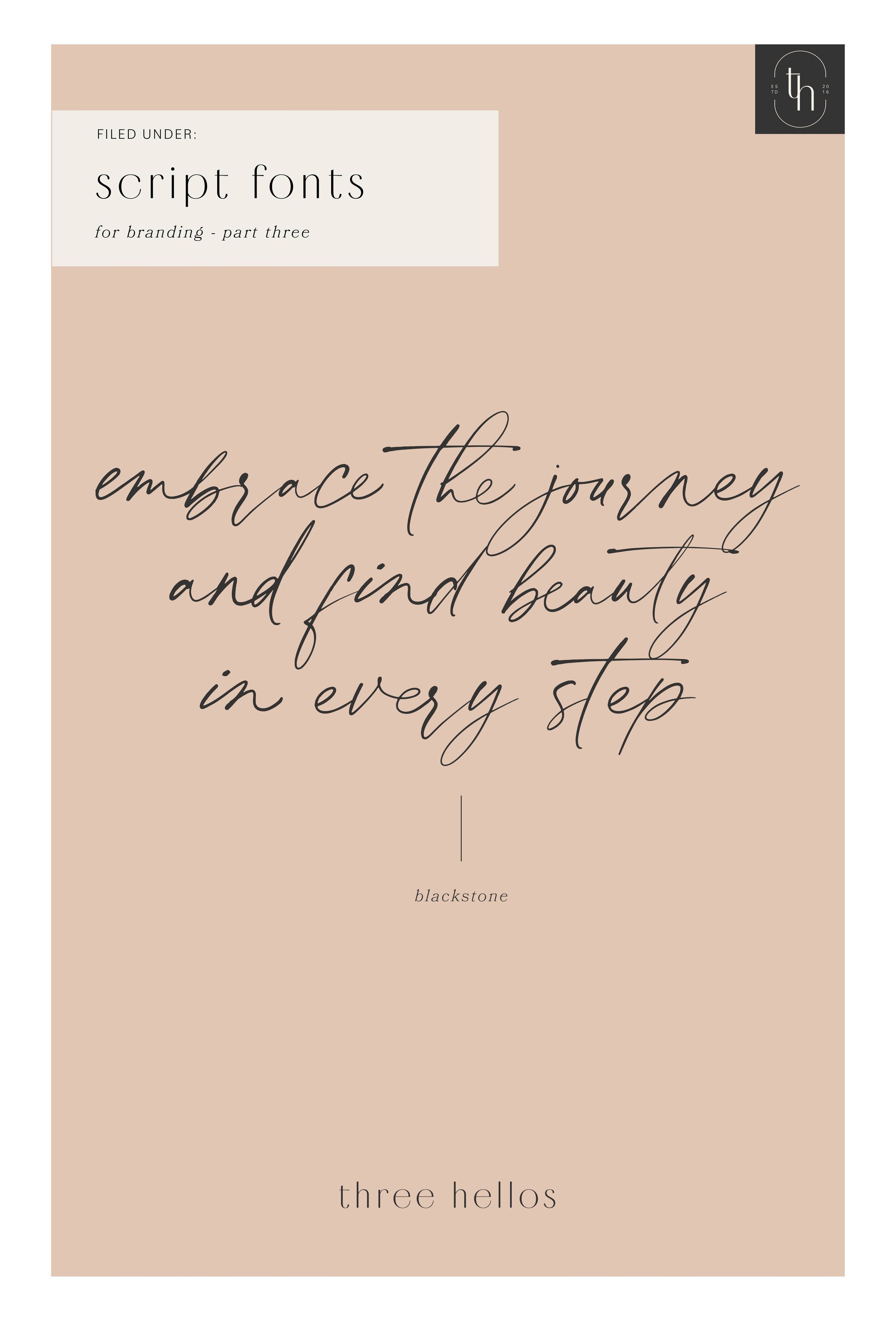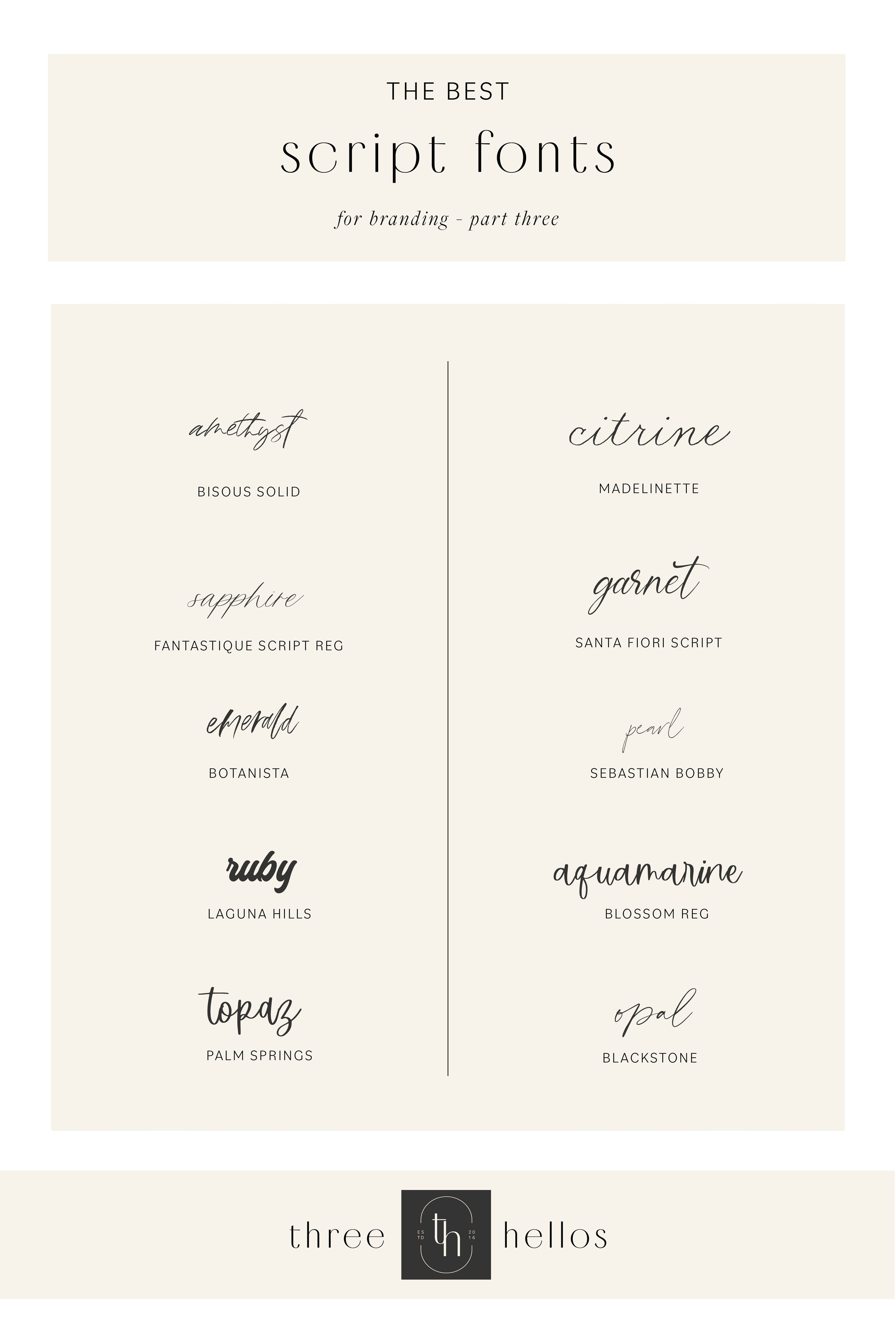
When it comes to establishing a strong brand identity, the right choice of fonts plays a crucial role. Among the wide range of font styles available, script fonts offer a touch of elegance, sophistication, and personality. Their flowing, handwritten-like appearance adds a unique charm to any design. In this blog post, we will explore 10 script fonts that are perfect for small business branding and discuss why script fonts are incredibly useful in creating a distinctive visual identity.
SCRIPT FONTS ARE TYPICALLY ASSOCIATED WITH FEMININITY, ELEGANCE, AND CREATIVITY. THEY ALSO TEND TO FEEL MORE PERSONAL DUE TO THEIR HANDWRITTEN NATURE.
I caution you to use a script font sparingly, especially on a website, because it can be more challenging to read. I do love to use them as accents and for packaging and stationery though.
I also highly recommend test driving a font and making sure you like how the letters connect and how they are formed prior to purchasing. Are you a script font fan?
Why Script Fonts Are Useful for Small Business Branding:
Personality and Uniqueness: Script fonts offer a wide range of styles, allowing small businesses to find a font that reflects their unique personality and sets them apart from competitors.
Elegance and Sophistication: Script fonts can instantly add a touch of elegance and sophistication to a brand's visual identity, making them ideal for businesses aiming for a refined and upscale image.
Emotional Connection: The flowing and handwritten-like appearance of script fonts evokes a sense of warmth, personal connection, and human touch, helping small businesses establish a deeper emotional connection with their audience.
Versatility: Script fonts can be adapted to various brand styles, whether it's a modern, vintage, playful, or romantic aesthetic. They can be used as a primary font or combined with other font styles to create a harmonious and balanced brand identity.
BISOUS SOLID / FANTASTIQUE SCRIPT REG / BOTANISTA / LAGUNA HILLS / PALM SPRINGS / MADELINETTE / SANTA FIORA SCRIPT / SEBASTIAN BOBBY / BLOSSOM REG / BLACKSTONE
I always recommend a test drive of the font before purchasing if available. Type out words or the alphabet so that you can see all letterforms. I won’t lie, there have been times that I have liked a font until I saw how one letter was formed and it was ruined for me. The tiny details can really make a big impact when you are talking about font selection.
Here are a few graphics that utilize some of the fonts from my list so you can get a better visual and feeling for them. Pay attention to how they feel. Are they in line with your style? Do they give the vibes that it’s your handwritten style?